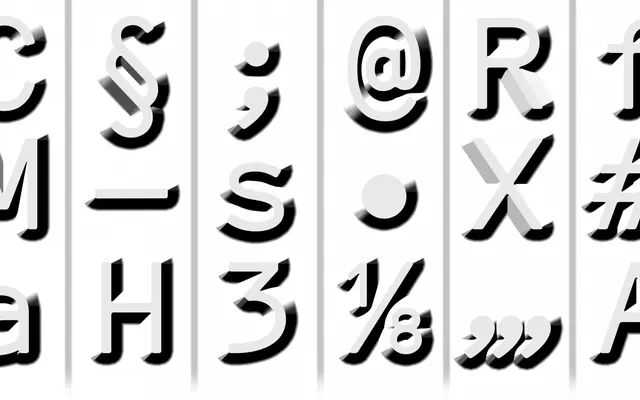
CMM Coda
Comma Type · Anna Cairns · 2024
A typewriter-derived family by Anna Cairns drawn from the IBM Selectric's Dual Basic face, offered in three structurally distinct styles with a feminist conceptual framework connecting typing, coding and writing.
Based on Dual Basic, a 1960s IBM Selectric typeface, CMM Coda splits into Mono Sans, Mono Serif and Proportional, each with an italic, offering an unusual breadth within a shared analogue DNA. Stylistic sets including normalised proportions, alternate letterforms and a German gender symbol asterisk substantially alter the character of each style. The conceptual premise links the history of women in typing and software engineering to the visual language of monospaced and proportionally spaced type.
Derived from Dual Basic, a 1960s IBM Selectric typewriter face, the family includes both monospaced and proportional styles with a warm analogue aesthetic rooted in typewriter typography.